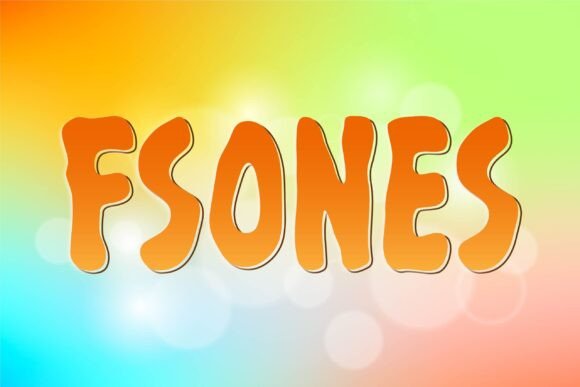
Fsones Font: A Gothic-Crafted Stylish Decorative Font with a Playful Cartoon Twist
In the realm of typography, fonts play a crucial role in shaping the visual identity of a project. Whether it’s a movie title, cartoon name, game title, or t-shirt design, the right font can elevate the creative appeal and make it stand out. Introducing Fsones, a gothic-crafted stylish decorative font that brings a unique blend of playfulness and sophistication to the table. With its distinctive absence of lowercase letters, Fsones is poised to revolutionize the way you approach font selection for your creative endeavors.
Unleashing the Power of Fsones: A Font Like No Other
Fsones is not just another font; it’s an experience. Crafted with meticulous attention to detail, this font boasts a gothic-inspired design that exudes a sense of mystery and allure. The absence of lowercase letters gives Fsones a distinctive edge, setting it apart from more traditional fonts. This feature, combined with its playful cartoon quality, makes Fsones an exceptional choice for projects that demand a touch of whimsy and visual impact.
The Design: 96 Glyphs and 95 Characters of Creativity
One of the standout features of Fsones is its extensive character set. Comprising 96 meticulously designed glyphs and 95 characters, this font offers a wealth of creative possibilities. Whether you’re working on a movie title, cartoon name, or game title, Fsones provides the flexibility to experiment with different styles and expressions. The font’s design ensures that every character is a work of art, contributing to a visually cohesive and stunning outcome.
Perfect for a Variety of Projects
Fsones is a versatile font that lends itself to a wide range of applications. Here are some of the ideal projects where Fsones can make a significant impact:
- Movie Titles: Add a touch of drama and intrigue to your movie titles with Fsones’ gothic-crafted stylish decorative design.
- Cartoon Names: Bring your cartoon characters to life with Fsones’ playful cartoon quality.
- Game Titles: Make your game titles stand out with Fsones’ unique blend of gothic and playful elements.
- T-Shirt Designs: Create eye-catching t-shirt designs that showcase your creativity with Fsones’ distinctive style.
Why Choose Fsones?
With so many fonts available, why should you choose Fsones? Here are a few compelling reasons:
- Unique Design: Fsones’ absence of lowercase letters and gothic-crafted design make it a one-of-a-kind font.
- Playful Cartoon Quality: Add a touch of whimsy and playfulness to your projects with Fsones’ cartoon-inspired design.
- Versatility: Use Fsones for a wide range of projects, from movie titles and cartoon names to game titles and t-shirt designs.
- Beauty and Functionality: Fsones delivers both aesthetic appeal and practicality, making it an exceptional choice for creative projects.
In conclusion, Fsones is a game-changing font that offers a unique blend of gothic-crafted stylish decorative design and playful cartoon quality. With its extensive character set, versatility, and distinctive absence of lowercase letters, Fsones is poised to become a go-to font for creative professionals and hobbyists alike. Whether you’re working on a movie title, cartoon name, game title, or t-shirt design, Fsones is the perfect choice for bringing creativity and visual impact to your project.